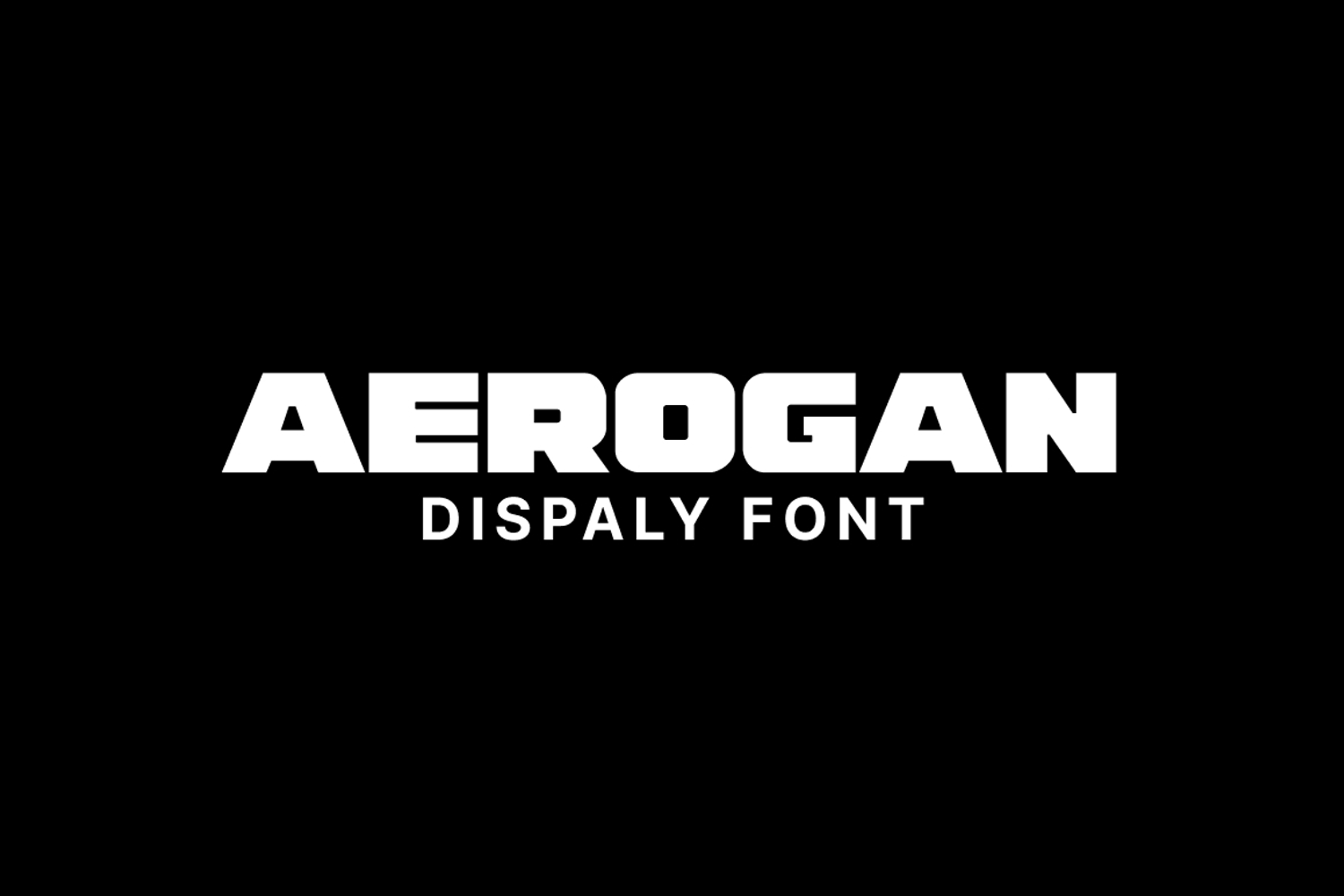
Aerogan
AEROGAN is a bold display typeface inspired by futuristic motorsport aesthetics, industrial design, and modern racing culture. Featuring strong geometric shapes, sharp cuts, and powerful visual weight, this font is perfect for logos, esports branding, automotive graphics, posters, apparel, packaging, and high-impact headlines. With its aggressive yet clean character style, AEROGAN delivers a fast, modern, and commanding presence across both digital and print designs.